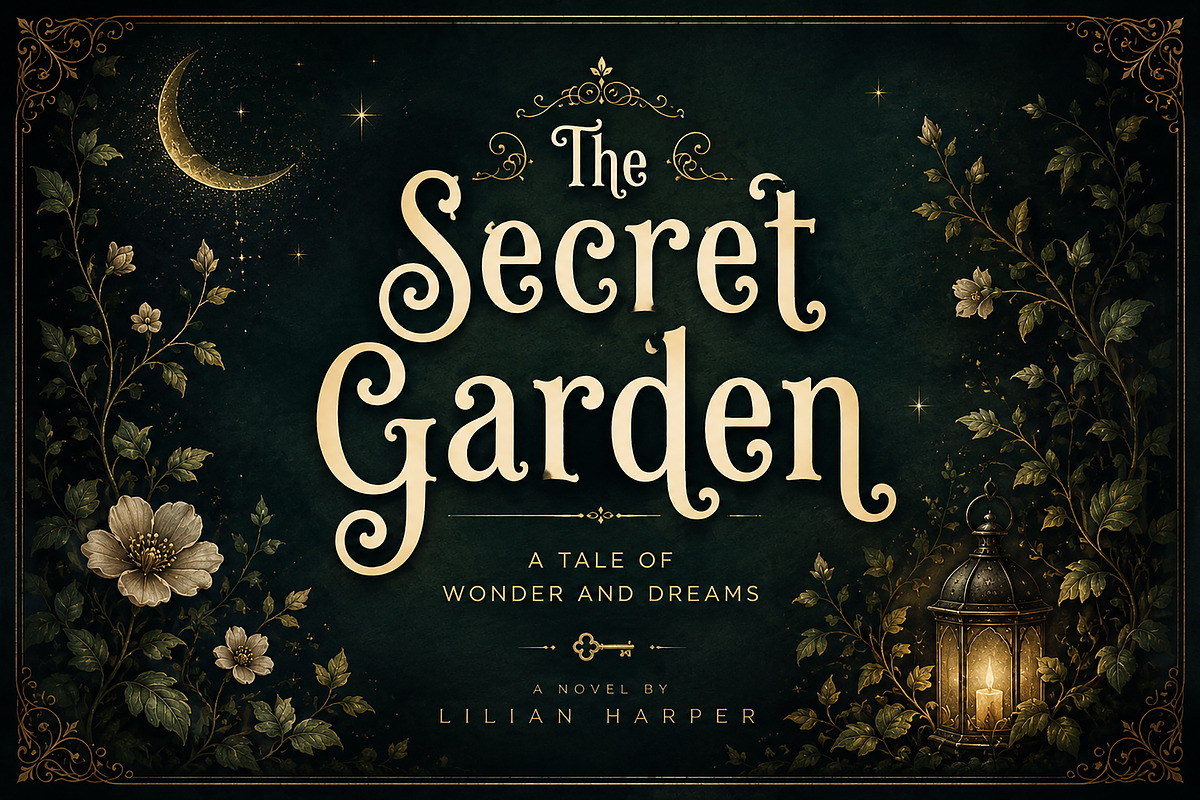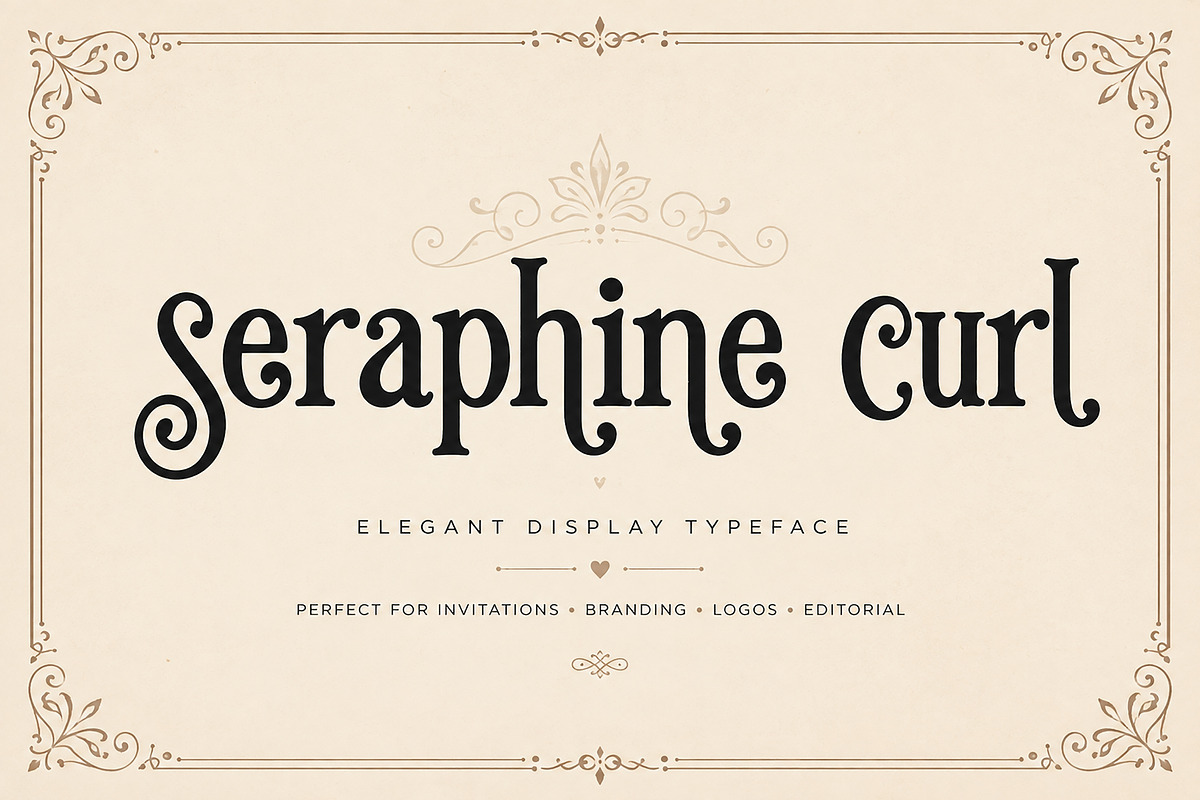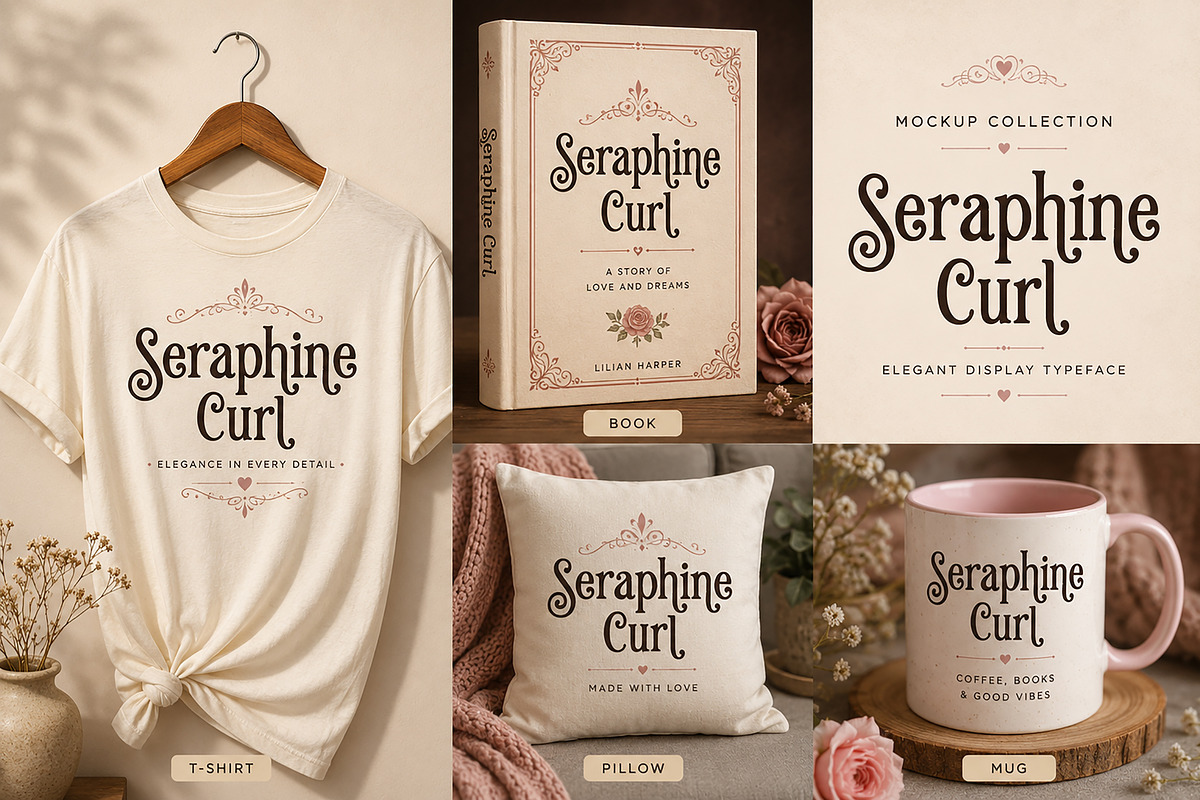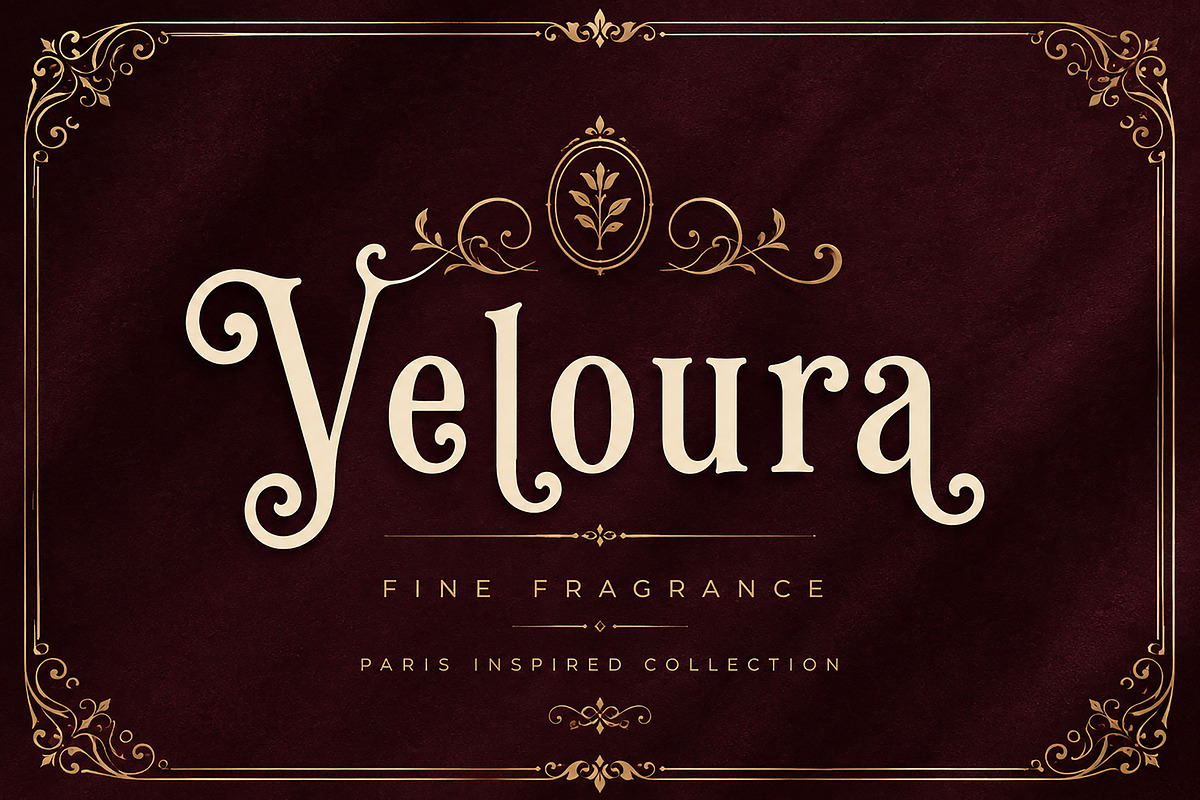
Seraphine Curl
Seraphine Curl is an elegant display typeface designed to bring timeless beauty and artistic charm to your creative projects. Featuring graceful curves, decorative swashes, and a sophisticated vintage-inspired style, this font is perfect for designers who want to create memorable and luxurious typography.
Whether you're designing wedding invitations, branding, logos, packaging, book covers, editorial layouts, social media graphics, or premium product labels, Seraphine Curl delivers a refined and distinctive look that instantly captures attention.
Its handcrafted decorative letterforms combine classic elegance with modern readability, making it an excellent choice for both personal and commercial design projects.
Elegant Decorative Display Typeface
Vintage & Classic Style
Beautiful Curved Letterforms